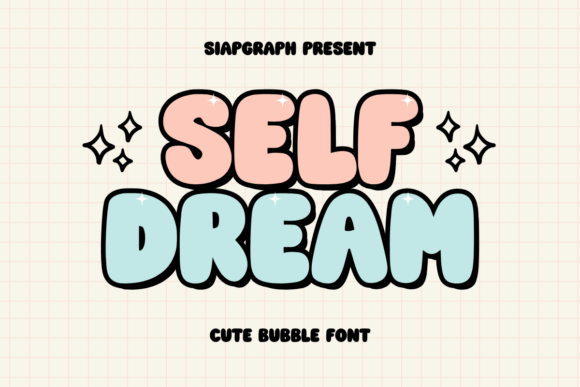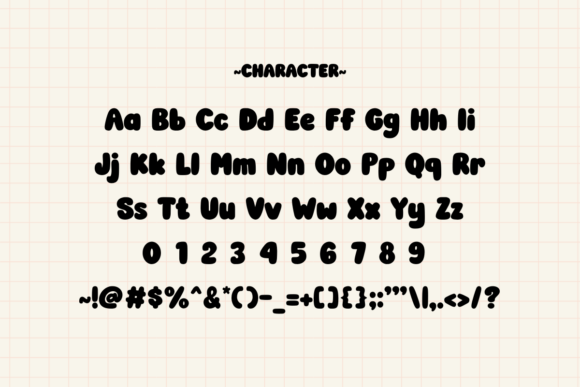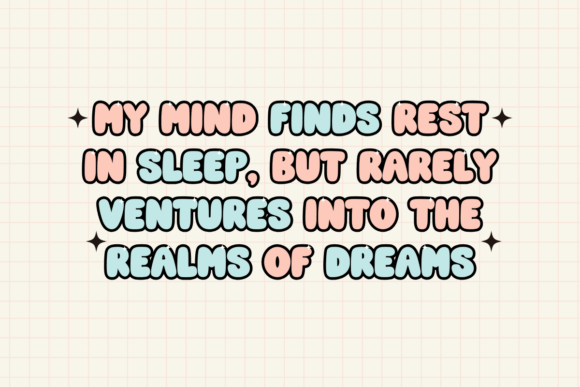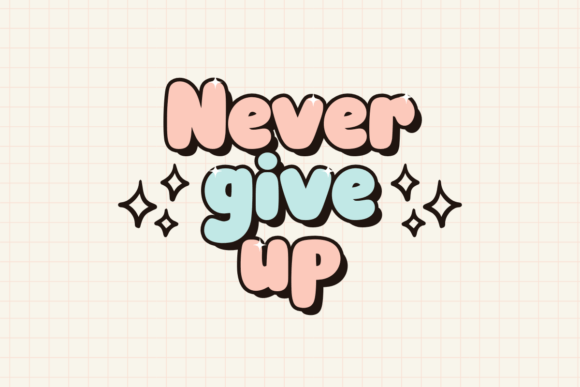
Self Dream Font: A Playful & Cute Bubble Display Font
About the Self Dream Font
We are excited to introduce Self Dream Font, a must-have typeface for any serious designer. Bring your ideas to life with Self Dream, a charming and cute bubble font that exudes playfulness! Its soft curves and bold appearance are perfect for creating eye-catching headlines, posters, social media graphics, and branding. Add a dreamy touch to your designs with this delightful font that’s both fun and versatile.
Self Dream Font Usage Examples
Self Dream Font Example